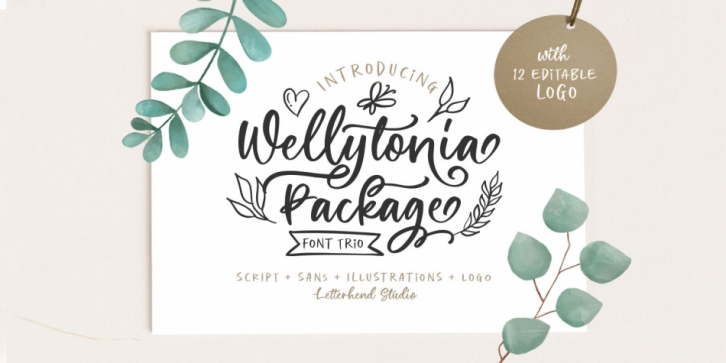
Designed by Hendry Juanda, Wellytonia Package - Font Trio is a hand drawn and dingbat font family. This typeface has three styles and was published by Letterhend Studio.
Wellytonia package is a package consist of script font, sans serif font, illustration, ready-made logos and dingbats! All made by manual hand drawing to make sure the natural looks and feel. This type of font perfectly made to be applied especially in logo, and the other various formal forms such as invitations, labels, logos, magazines, books, greeting / wedding cards, packaging, fashion, make up, stationery, novels, labels or any type of advertising purpose.
Wellytonia Script, Sans & Dingbats
12 editable logo templates
40 hand drawn vector objects
uppercase & lowercase
numbers and punctuation
multilingual
alternates & ligatures